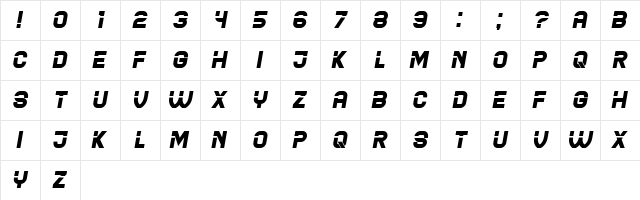
Blader Italic
Design Context for Blader Typeface
Blader offers clean, dependable letterforms without strong stylistic allegiance, making it a practical choice for designers who need flexibility. Its italic angle brings a sense of urgency and motion to the letterforms.